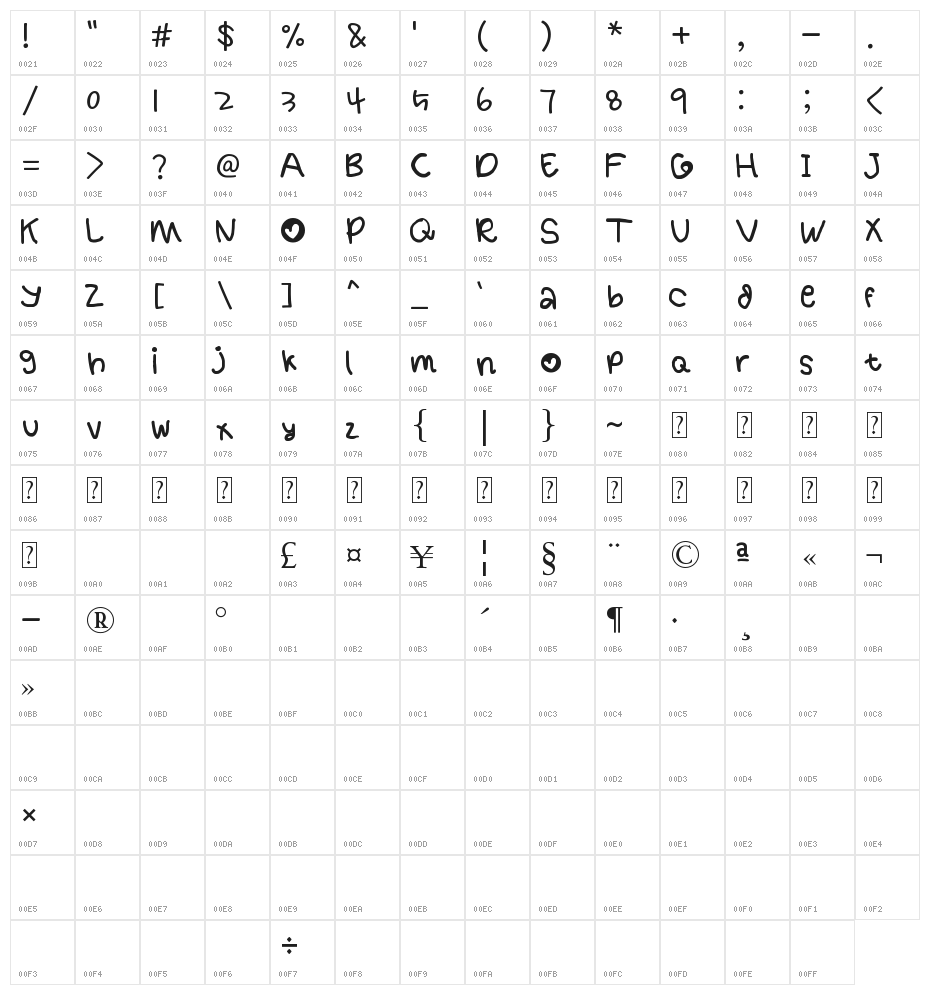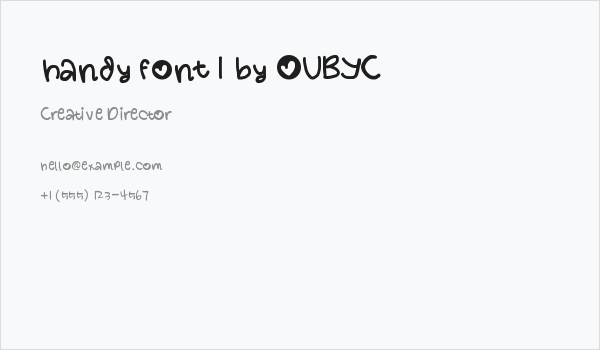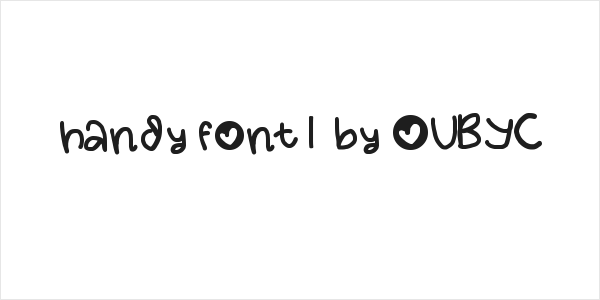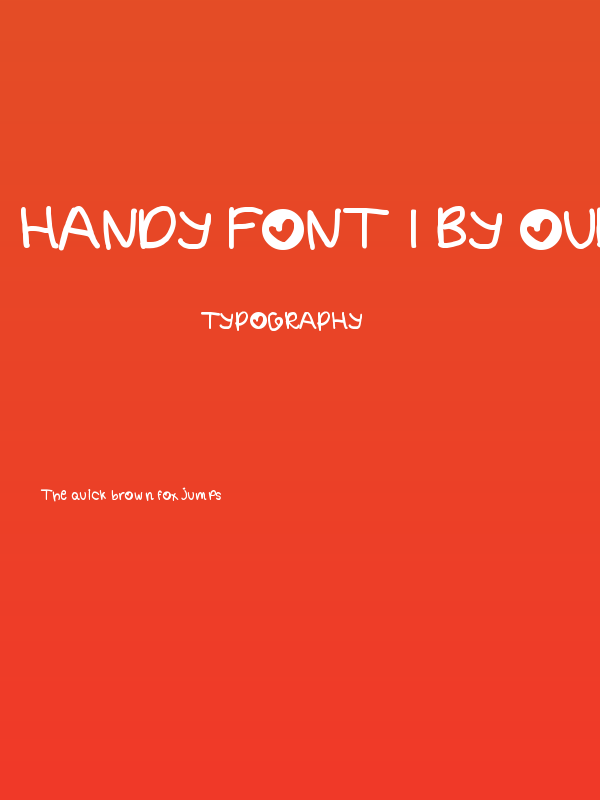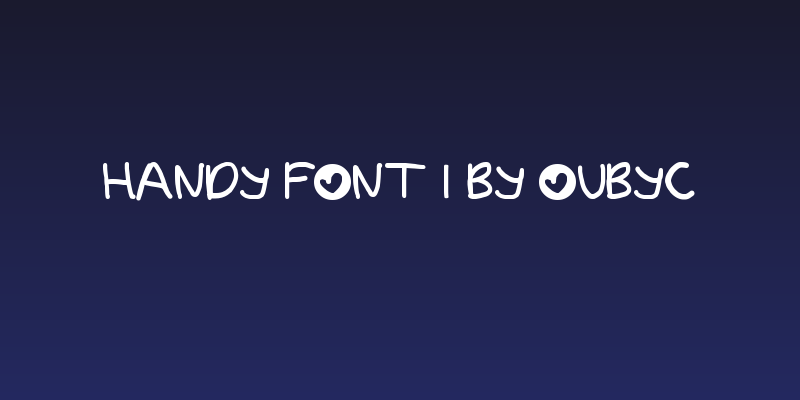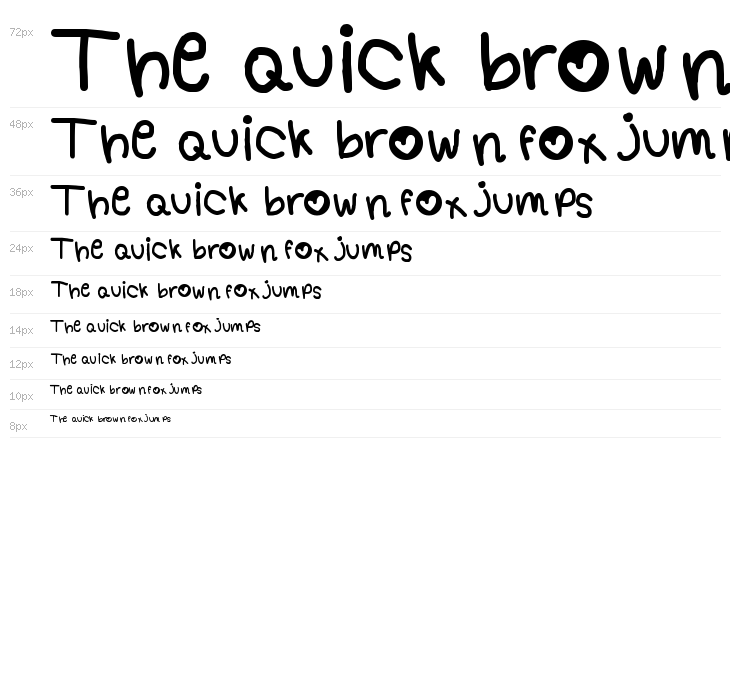
handy font 1 by OUBYC Font
handy font 1 by OUBYC Description
This playful and casual font features a handwritten style with a friendly and approachable appearance. The characters are rounded and slightly irregular, giving it a personal touch that mimics natural handwriting. The uppercase and lowercase letters maintain a consistent flow, while the numbers and special characters are designed to complement the overall style. This font is perfect for projects that require a human touch, such as invitations, greeting cards, and personal branding. Its unique style makes it stand out, adding a touch of warmth and personality to any design.
| Use Case | Headlines, Personal projects, Informal communications |
| Proposed Projects | Ideal for invitations, greeting cards, personal branding, and any project needing a human touch. |